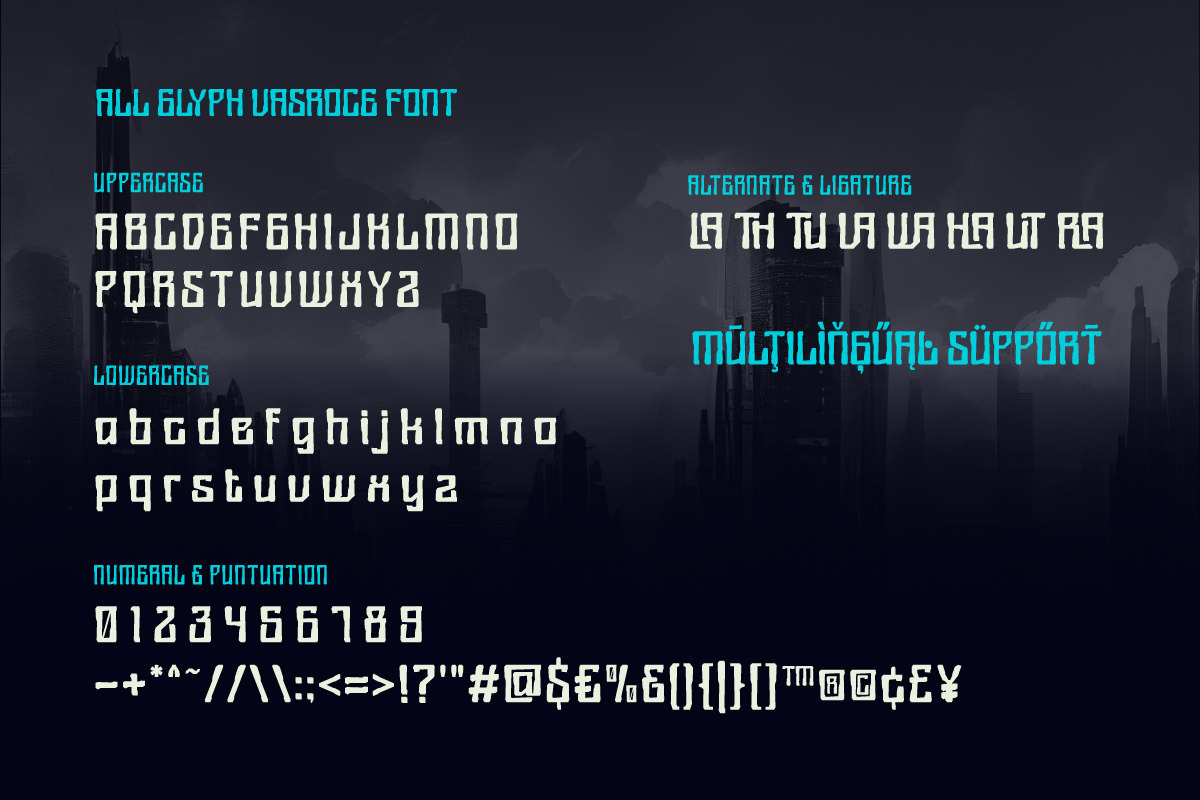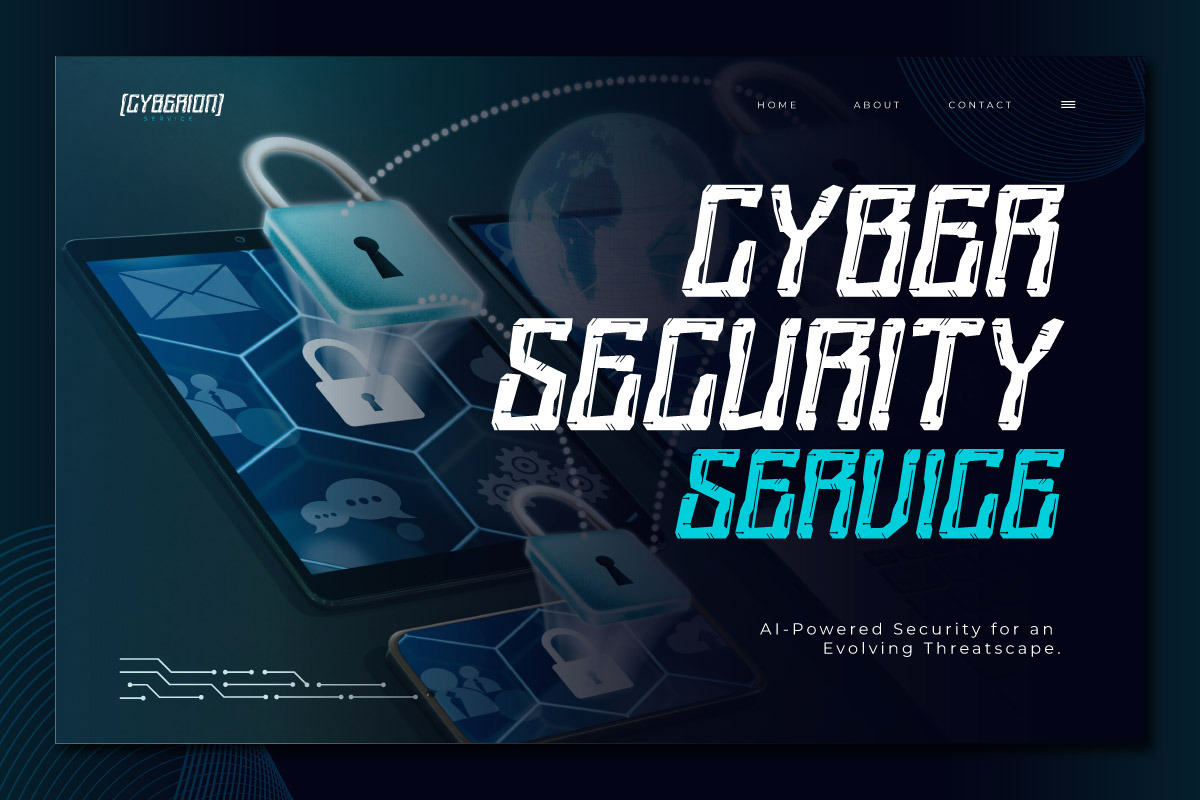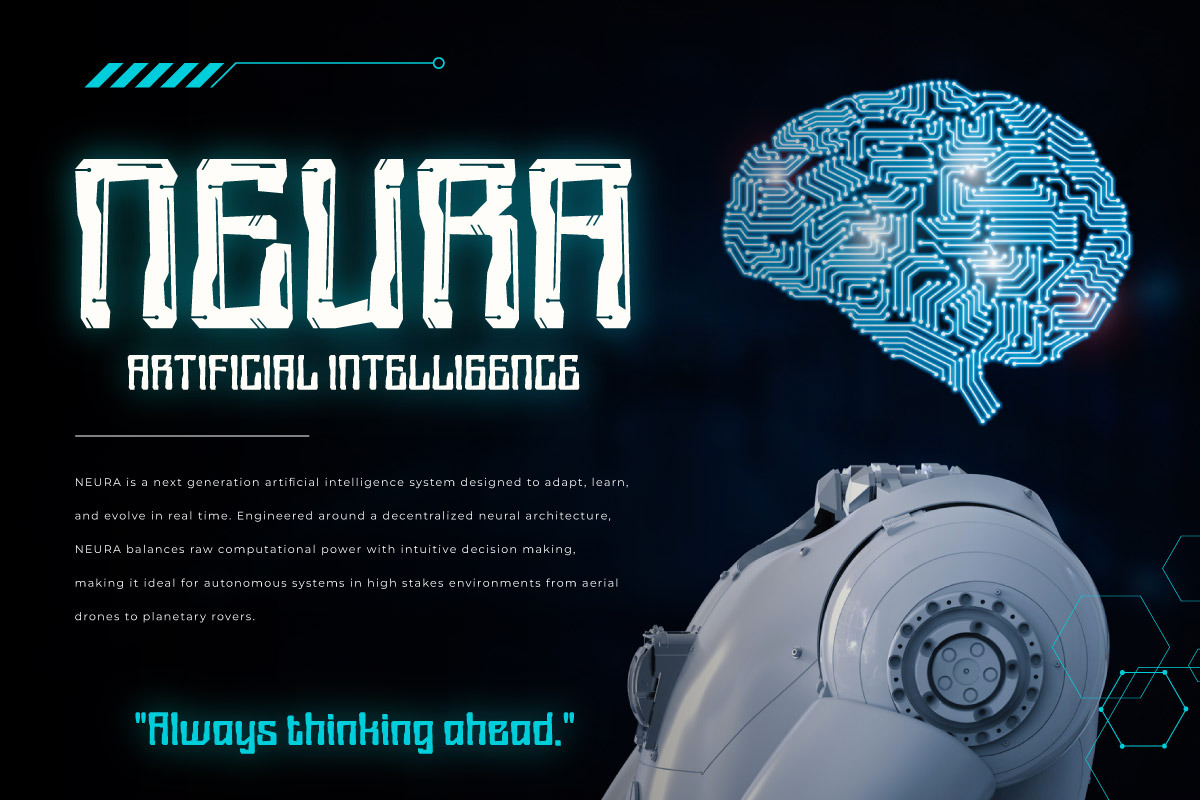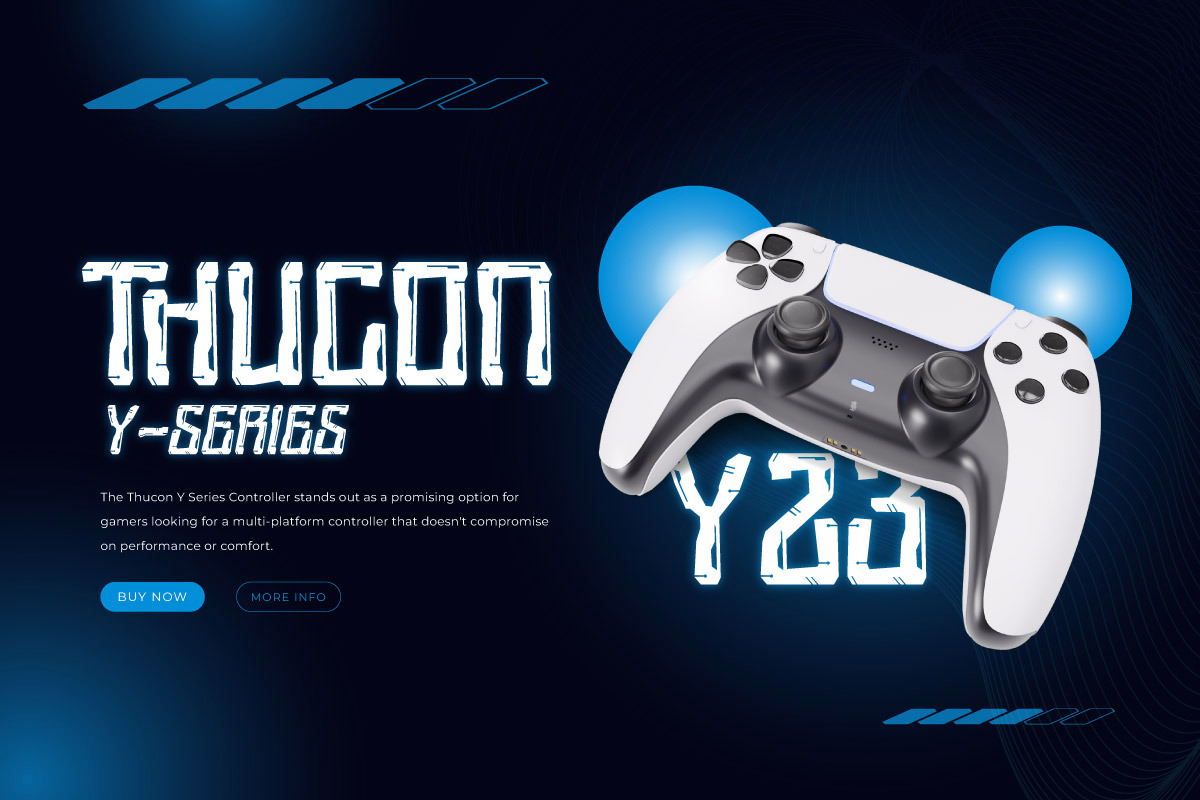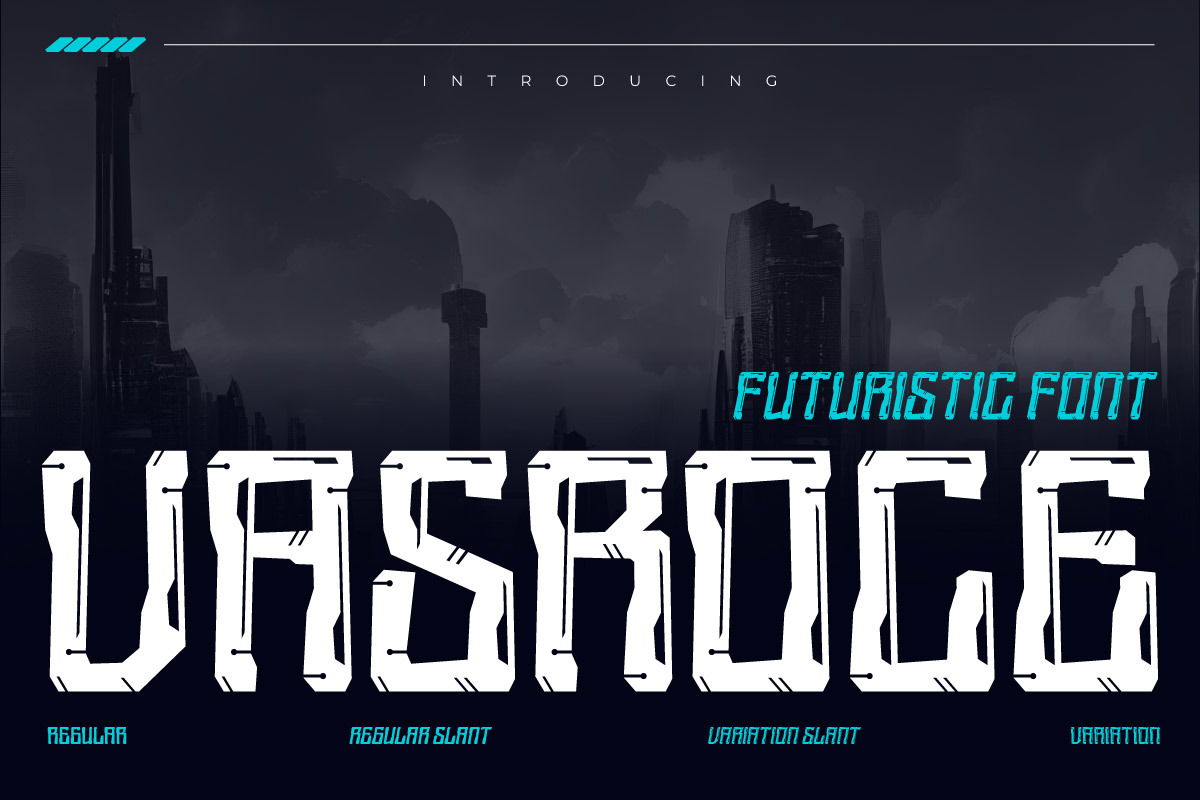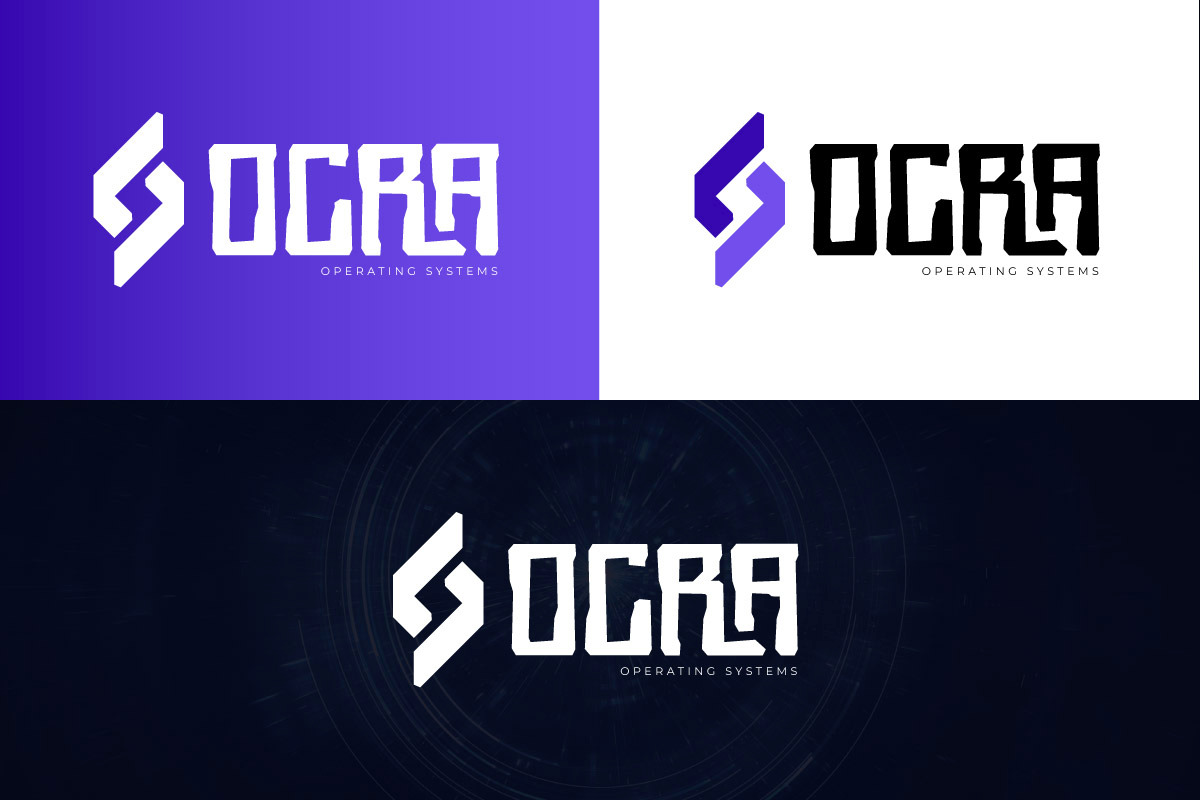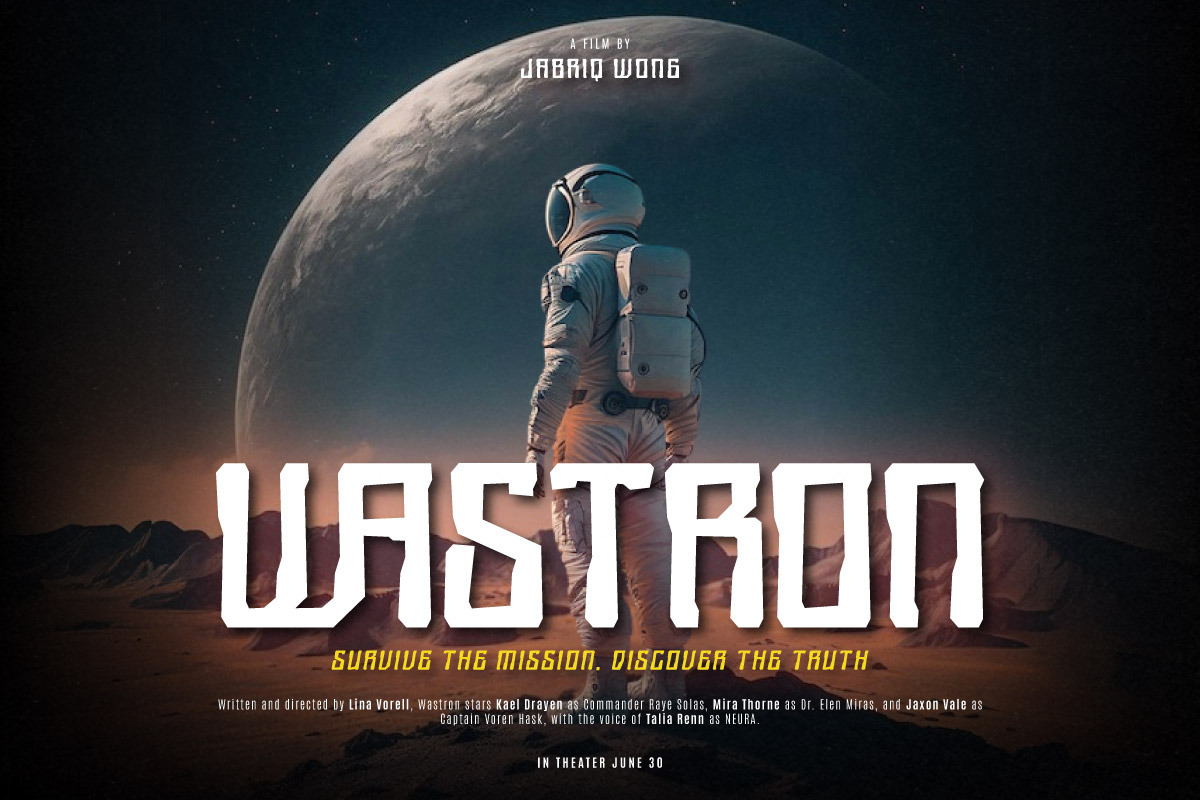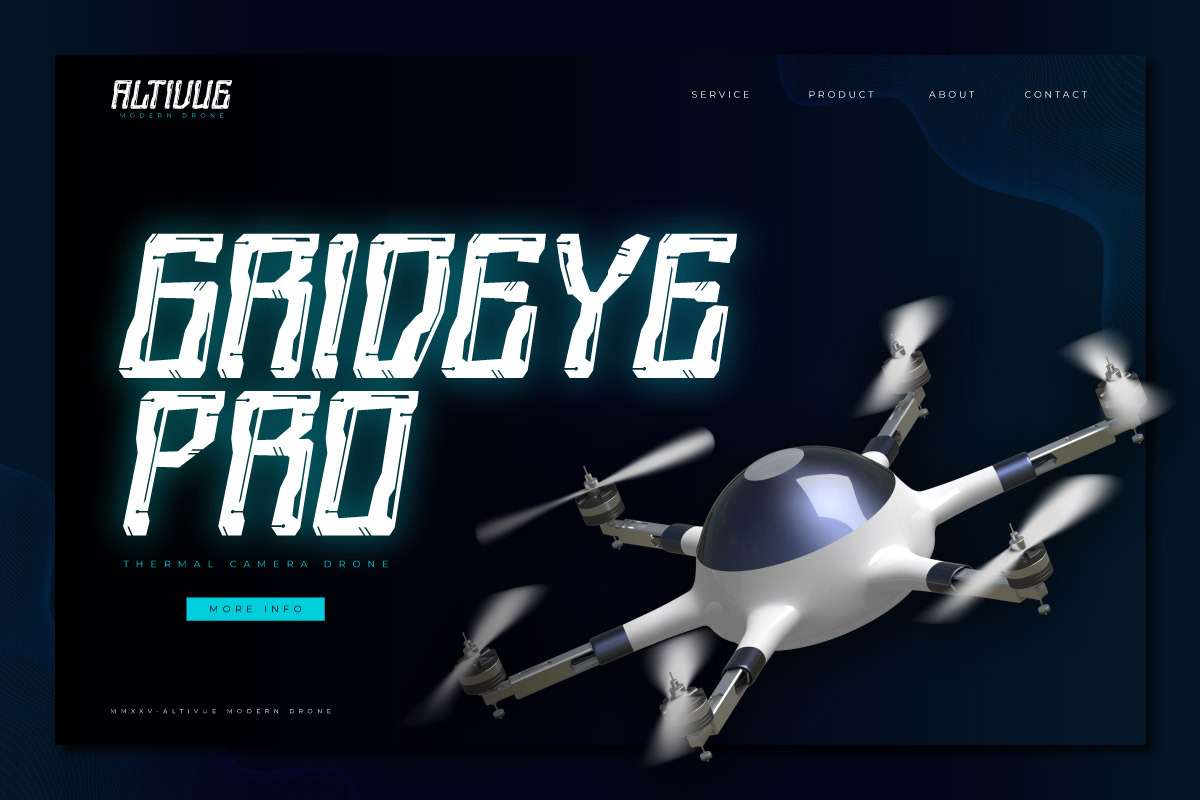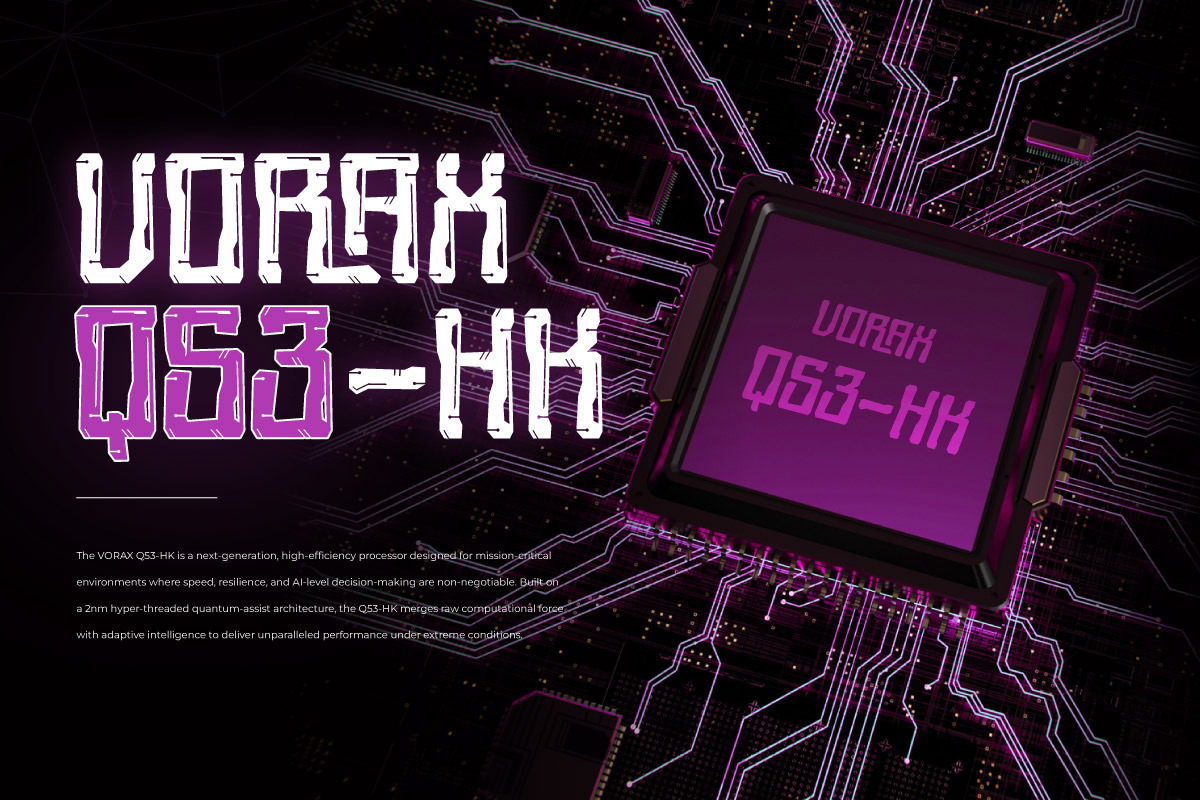
Vasroce - Futuristic Font
Step into the future with Vasroce, a sleek and cutting-edge futuristic display font designed for modern, high-tech, and sci-fi themed projects. Vasroce features clean lines, geometric structures, and a unique character style that brings a sharp, innovative edge to your designs. It’s perfect for branding, technology presentations, game titles, UI/UX interfaces, posters, and anything that needs a forward-thinking visual identity.
With its minimal yet striking design, Vasroce delivers an ultra-modern aesthetic that captures the imagination. Whether you're working on a tech startup logo, a science fiction cover, or digital products, Vasroce will help your message stand out with sophistication and precision.